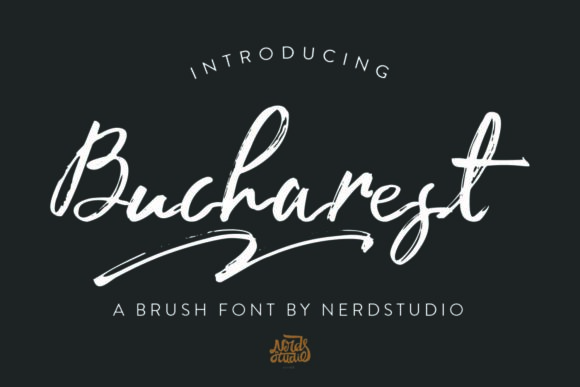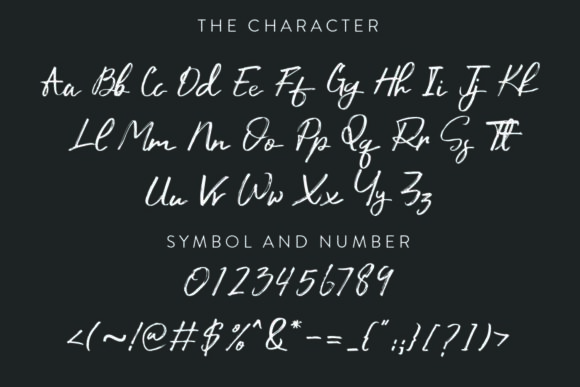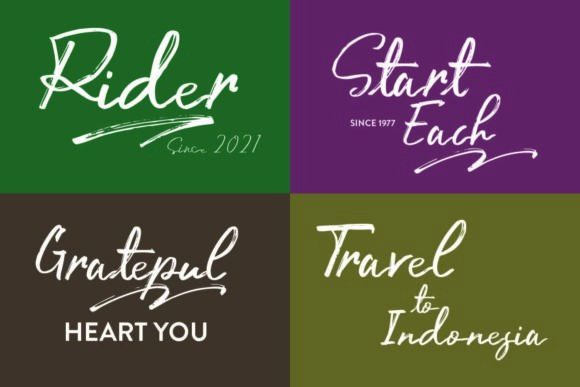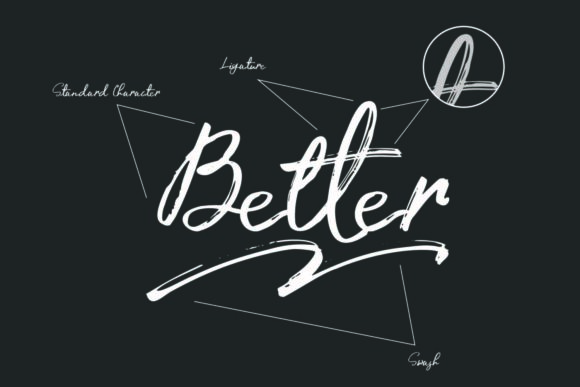
About Bucharest Font
Bucharest is an elegant and stylish brushed handwritten font that exudes charm and sophistication. Its delicate and flowing strokes give it a unique and beautiful appearance, making it perfect for a wide range of design projects that require a personalized touch.
With its lovely and stylish look, Bucharest is an excellent choice for wedding invitations, thank-you cards, and other special occasions. Its graceful and refined design will add a touch of elegance and class to any event, creating a memorable and heartfelt impression on your guests.
The font’s versatility allows it to shine in various contexts, whether you’re designing logos for a high-end brand or crafting beautiful greeting cards for your loved ones. Bucharest’s brushed texture adds a natural and organic feel to your designs, giving them an authentic and genuine touch.
Its flowing and expressive lines make it a wonderful choice for any project that needs a touch of creativity and artistry. Whether you’re designing a poster, creating social media graphics, or crafting branding materials, Bucharest will bring a sense of beauty and sophistication to your work.
As you use Bucharest, you’ll appreciate the attention to detail in each letter, which adds to the font’s overall elegance and charm. The thoughtful design and craftsmanship make it a delightful font to work with, allowing you to create stunning designs with ease.
Overall, Bucharest is a lovely and stylish brushed handwritten font that is perfect for adding a personalized and heartfelt touch to your designs. Its elegant and flowing strokes make it a standout choice for wedding invitations, thank-you cards, logos, and more. Embrace the beauty of Bucharest and let it elevate your designs to new heights of sophistication and charm.